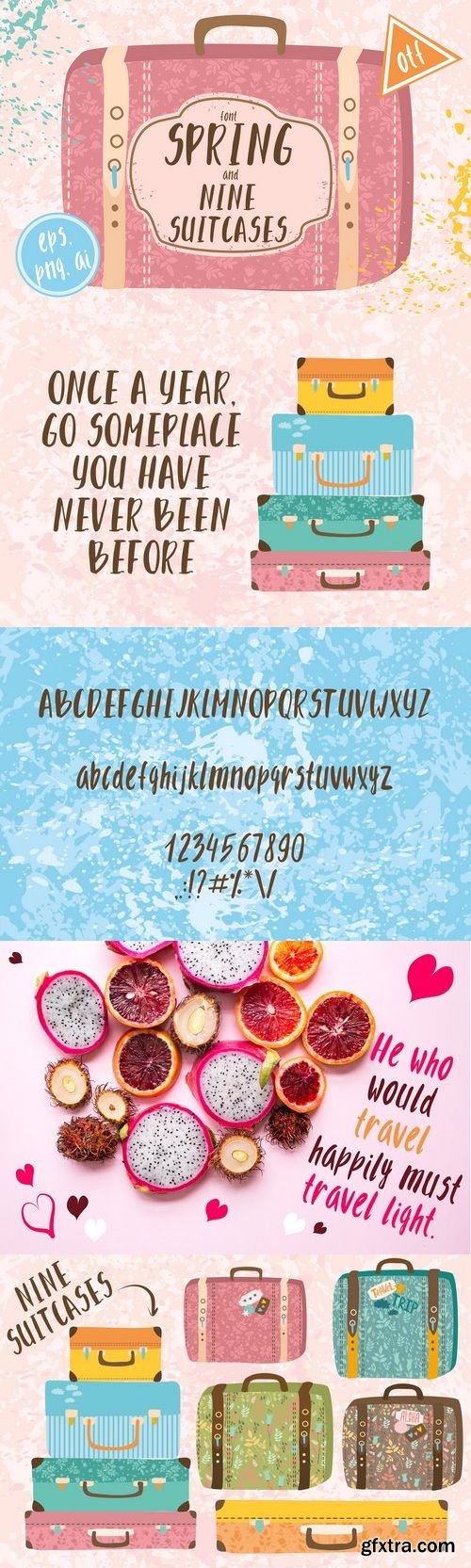
50% OFF Limited time only – offer ends 1 April 2017 Hi! Spring font and 9 vintage suitcases only for you! (: Use for art projects, prints, invitations, postcards, wallpaper, scenery, posters, bags, wallart, logos, quotes, blogs, website, banners